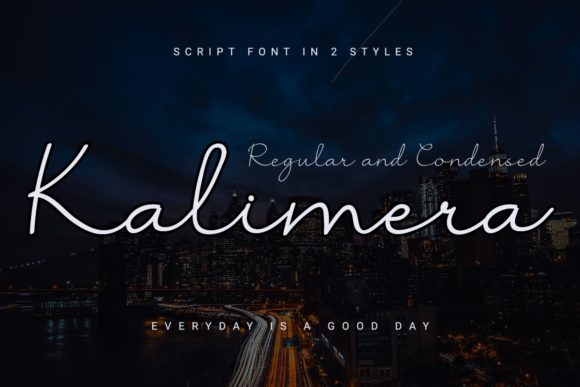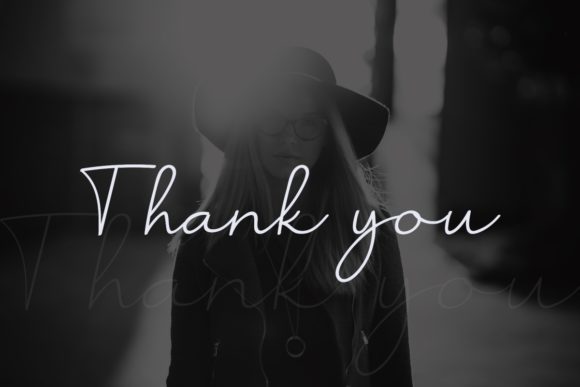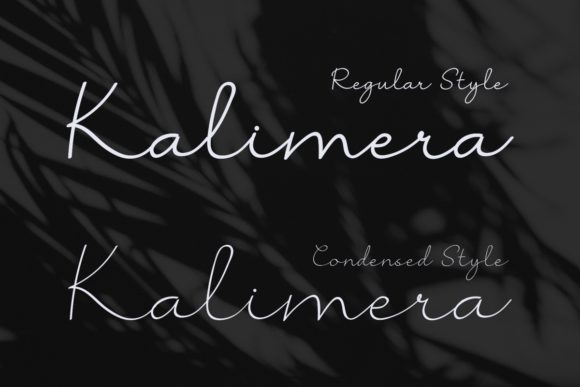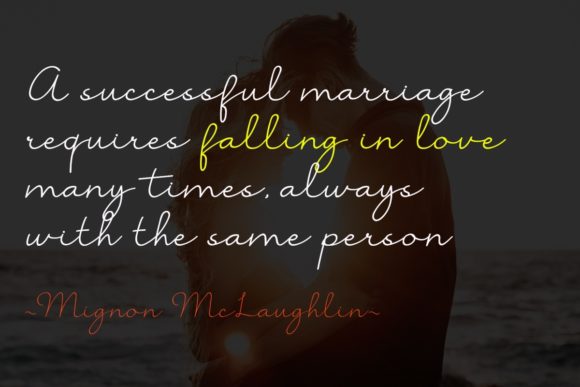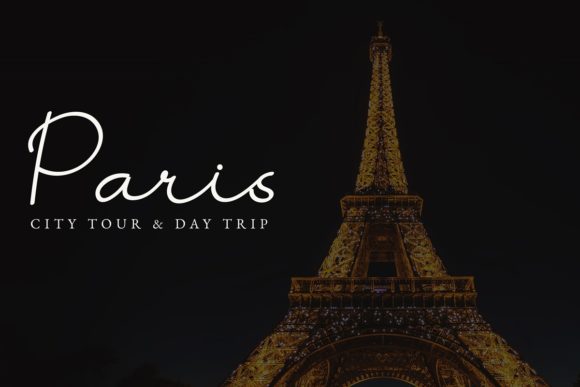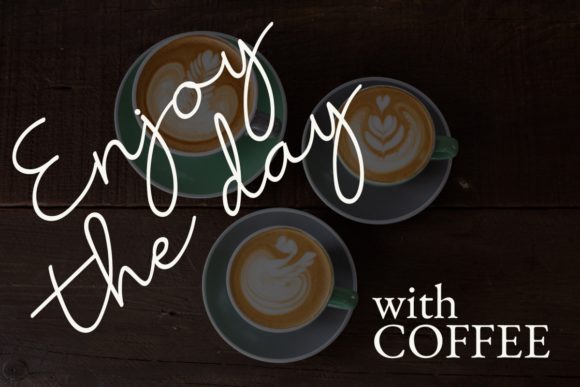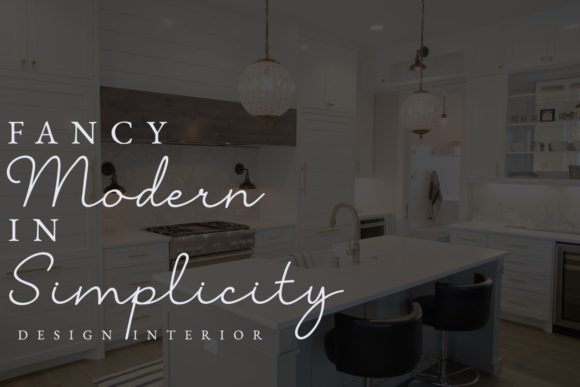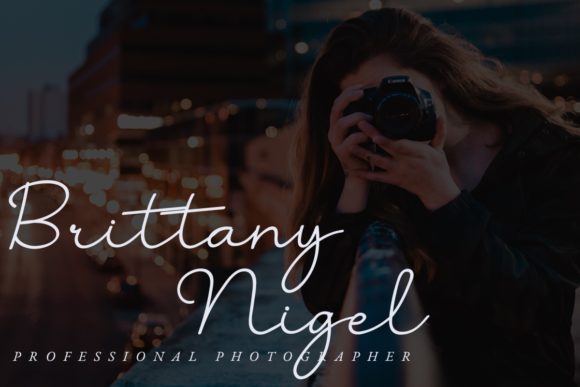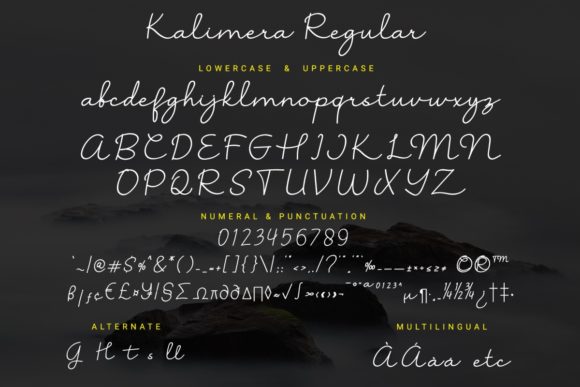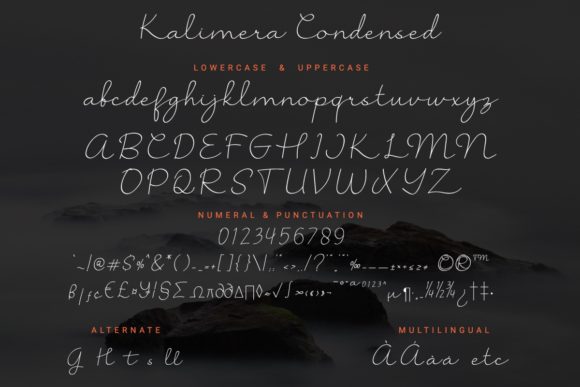
Kalimera Font
About Kalimera Font
Kalimera is a smooth and classic handwritten font. It comes in two different styles, regular and condensed. Use it for any design project that requires a personalized appearance!